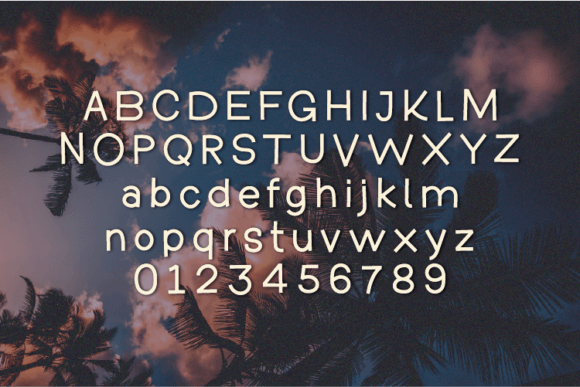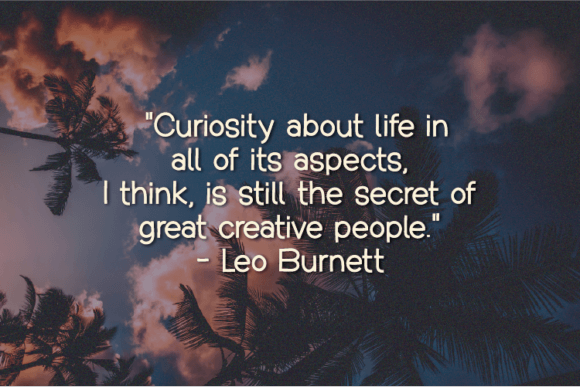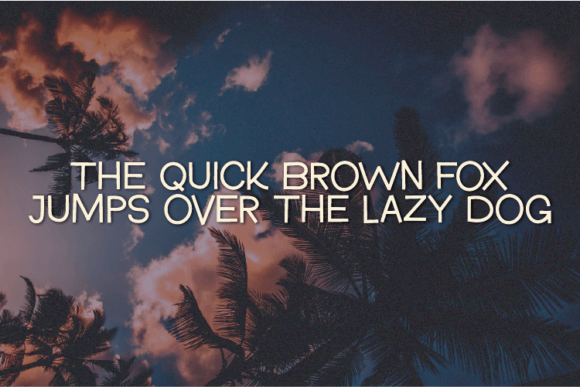
Introducing Heartwarming Font: The Perfect Addition to Your Creative Projects
Are you tired of using the same old fonts for your creative projects? Look no further! Heartwarming Font is a unique and interesting sans serif font that is perfect for adding a touch of personality to your quotes, notes, T-shirts, and many more. In this article, we’ll dive into the features and benefits of Heartwarming Font, and explore how it can elevate your designs and craft projects.
What is Heartwarming Font?
Heartwarming Font is a sans serif font that is designed to add a warm and friendly touch to your creative projects. Its clean and modern lines make it perfect for a wide range of applications, from digital designs to print materials. The font is highly versatile and can be used for various purposes, including quotes, notes, T-shirts, posters, and more.
Key Features of Heartwarming Font
- Unique and Interesting Design: Heartwarming Font has a distinctive design that sets it apart from other sans serif fonts. Its rounded edges and smooth lines give it a friendly and approachable feel.
- Highly Versatile: The font is perfect for a wide range of applications, from digital designs to print materials.
- Easy to Read: The clean and modern lines of Heartwarming Font make it easy to read, even at small sizes.
- Perfect for Quotes and Notes: The font’s warm and friendly feel makes it ideal for quotes and notes that require a personal touch.
Benefits of Using Heartwarming Font
So, why should you add Heartwarming Font to your font collection? Here are just a few benefits of using this unique and interesting font:
- Adds a Personal Touch: Heartwarming Font adds a warm and friendly touch to your creative projects, making them more engaging and relatable.
- Elevates Your Designs: The font’s clean and modern lines make it perfect for designs that require a touch of sophistication and elegance.
- Increases Readability: The font’s easy-to-read design makes it perfect for projects that require a high level of readability.
- Perfect for Crafters and Designers: Heartwarming Font is a must-have for crafters and designers who want to add a unique and interesting touch to their projects.
How to Use Heartwarming Font
Using Heartwarming Font is easy! Here are a few tips to get you started:
- Pair it with Other Fonts: Heartwarming Font pairs well with other sans serif fonts, making it perfect for projects that require a combination of fonts.
- Use it for Titles and Headings: The font’s bold and clean design makes it perfect for titles and headings that require a touch of sophistication.
- Add it to Your Digital Designs: Heartwarming Font is perfect for digital designs, including social media graphics, blog posts, and more.
In conclusion, Heartwarming Font is a unique and interesting sans serif font that is perfect for adding a touch of personality to your creative projects. Its clean and modern lines make it highly versatile, and its warm and friendly feel makes it ideal for quotes, notes, and more. Whether you’re a designer or crafter, Heartwarming Font is a must-have addition to your font collection. So why wait? Add it to your collection today and take your creative projects to the next level!
Still looking for inspiration on how to use Heartwarming Font? Here are a few tips and ideas to get you started:
- Use it for Wedding Stationery: The font’s elegant and sophisticated design makes it perfect for wedding stationery, including invitations, save-the-dates, and more.
- Add it to Your Craft Projects: Heartwarming Font is perfect for craft projects, including scrapbooking, card-making, and more.
- Use it for Social Media Graphics: The font’s clean and modern design makes it perfect for social media graphics, including Facebook posts, Instagram stories, and more.